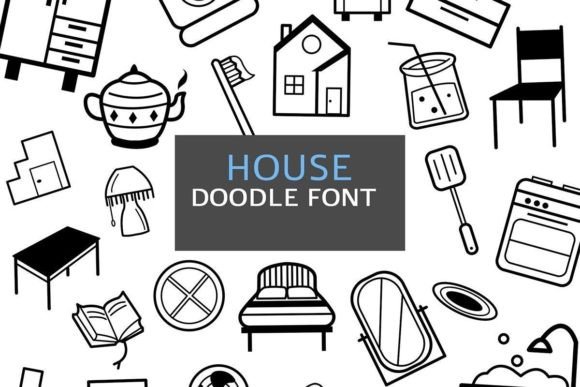
Embrace the enchanting world of House Doodle Font, a whimsical dingbat font that sparks creativity and captivates imaginations. This font, meticulously crafted by the artisans at digitalplannerland, is an exquisite collection of playful and charming symbols, each one a tiny masterpiece waiting to be discovered.
Let your imagination run wild as you explore the limitless possibilities of House Doodle Font. Adorn your digital designs with adorable icons, create captivating headers and titles that dance with delight, or add a touch of whimsy to your planners, diaries, and activity books. The versatility of this font knows no bounds, making it the perfect companion for any creative project that calls for a dash of fun and a sprinkle of magic.
Step into a realm where imagination reigns supreme, where every character in House Doodle Font tells a story. Transform your digital designs into enchanting landscapes, where houses with characterful windows and doors, mischievous animals, and playful patterns come together to create a visual feast. Let your designs bloom with creativity as you weave these delightful elements into your digital tapestry.
With House Doodle Font, you'll never run out of inspiration. Its charming collection of symbols is like a treasure trove of visual delights, waiting to be unearthed and incorporated into your creative endeavors. Whether you're a seasoned designer or just starting your artistic journey, House Doodle Font is the perfect tool to ignite your imagination and bring your visions to life.
Don't miss out on the opportunity to add a touch of magic to your digital designs. Embrace the whimsical charm of House Doodle Font today and embark on a creative adventure that will leave you enchanted and inspired. Let your imagination soar as you explore the endless possibilities of this captivating font.